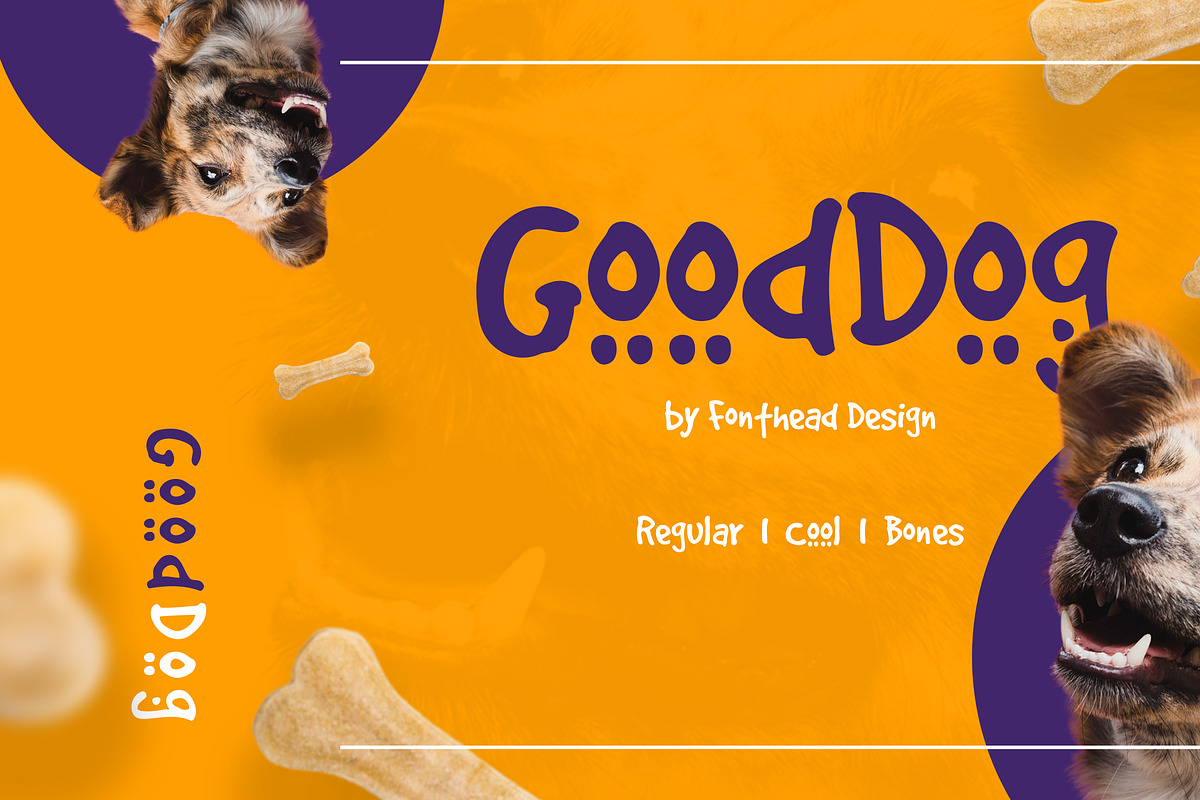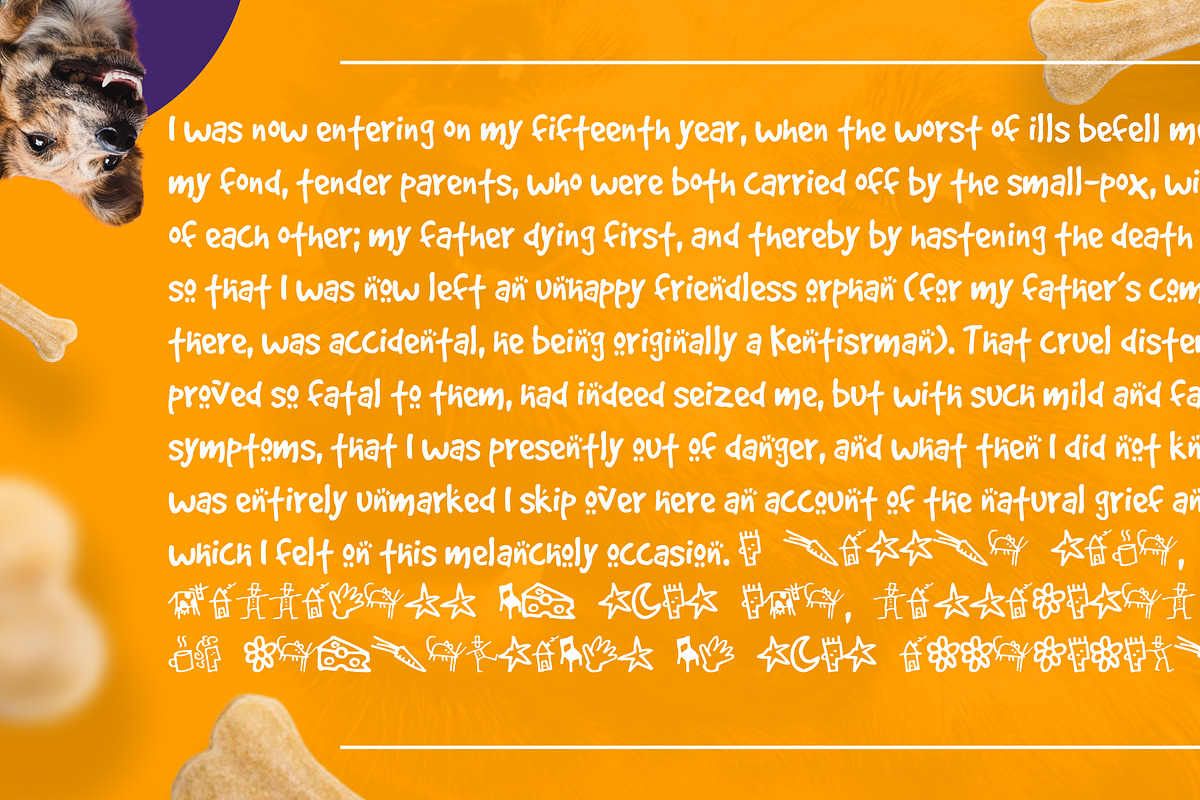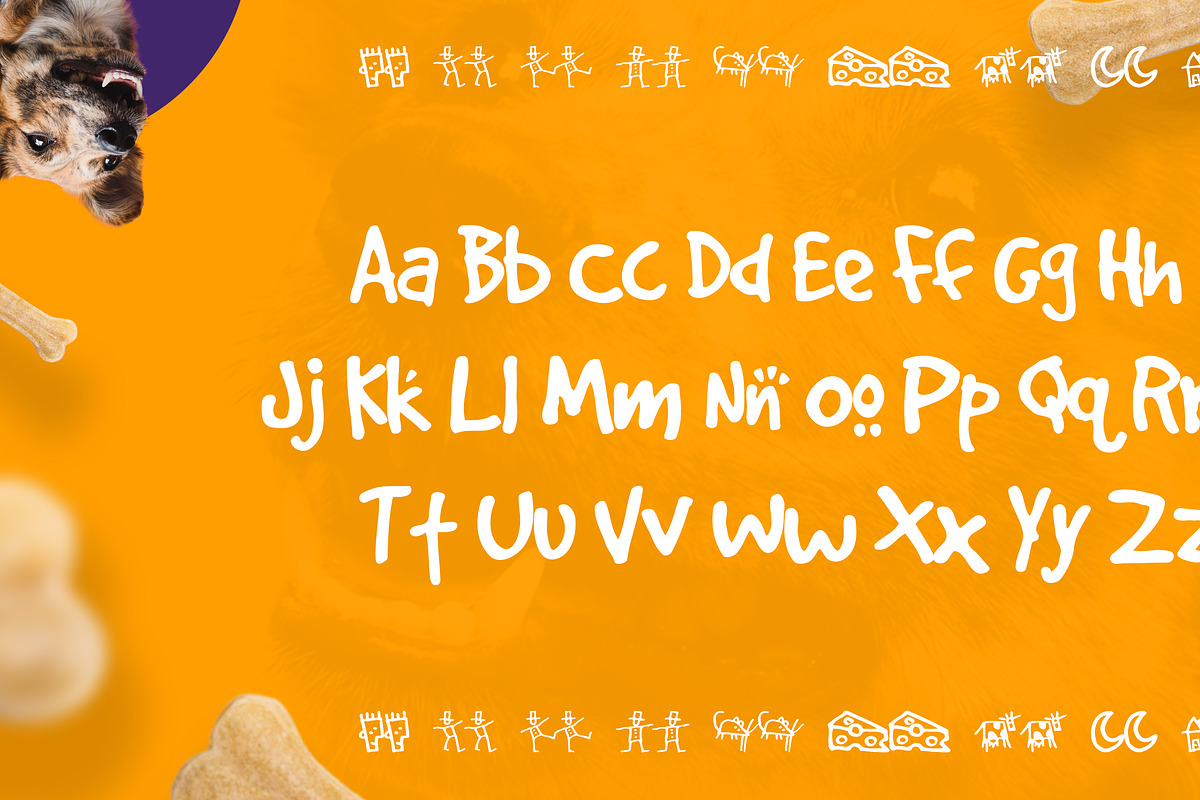
GoodDog
This font is a delightful blend of hand-drawn lettering and charming doodle accents. Its playful personality and bouncy strokes make it ideal for capturing the imagination of children. Perfect for use in children's books, greeting cards, posters, or any project requiring a touch of whimsical fun.